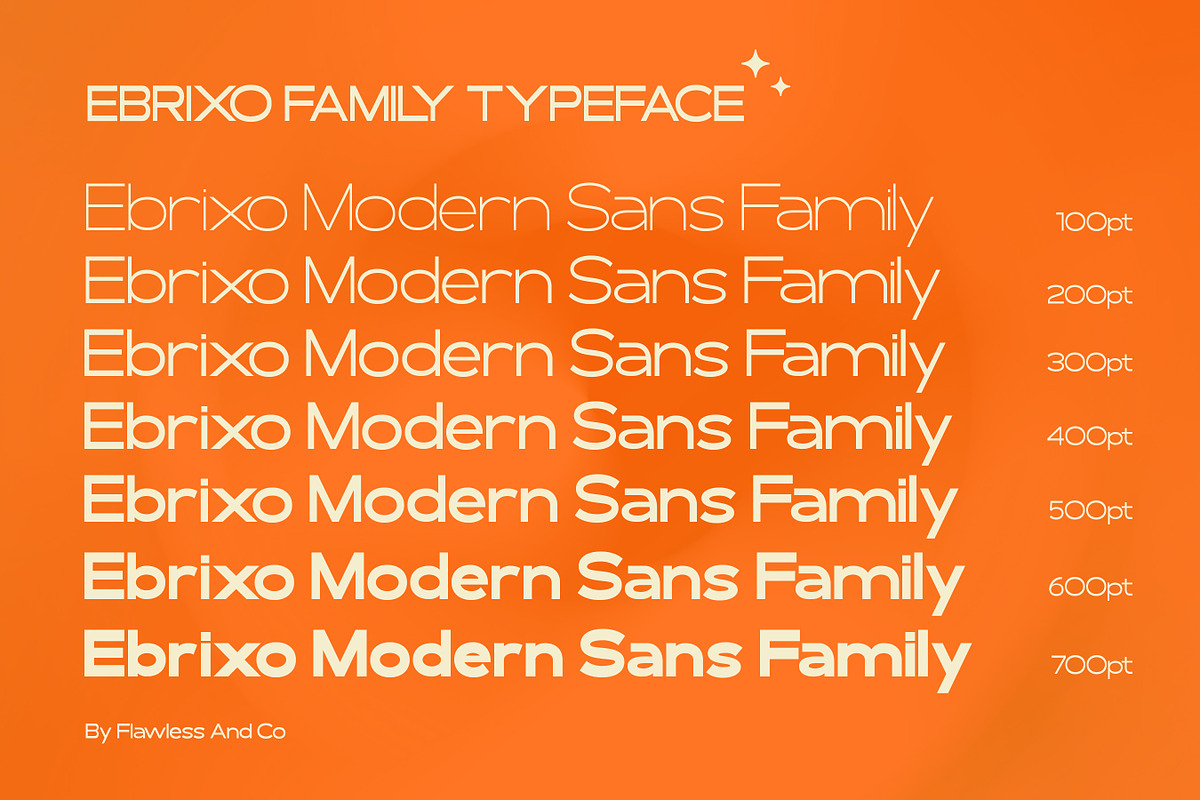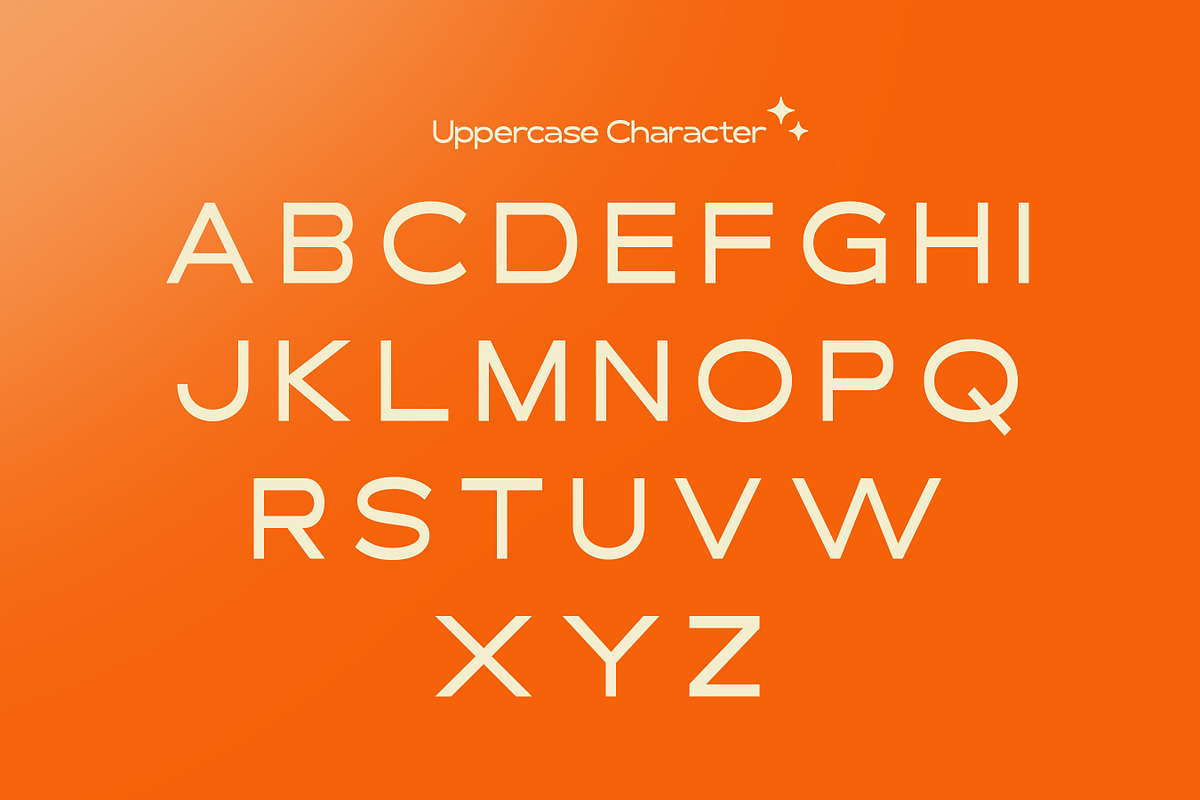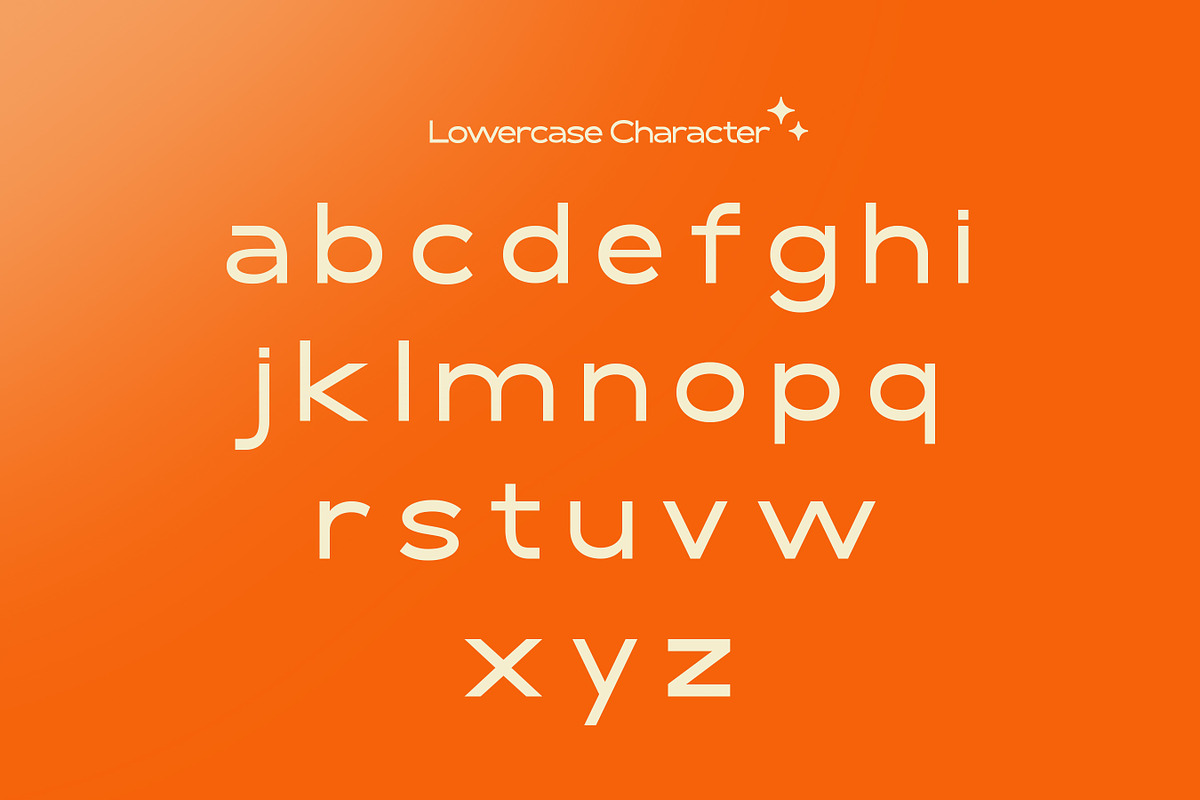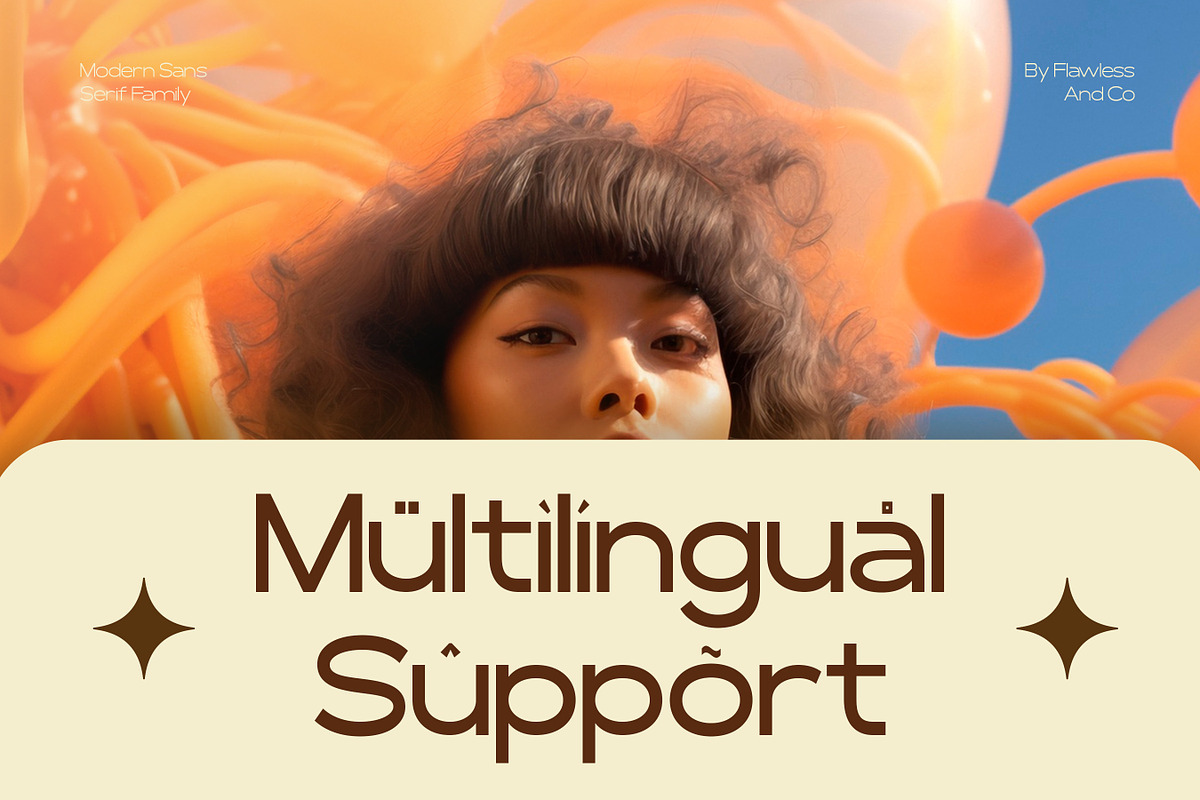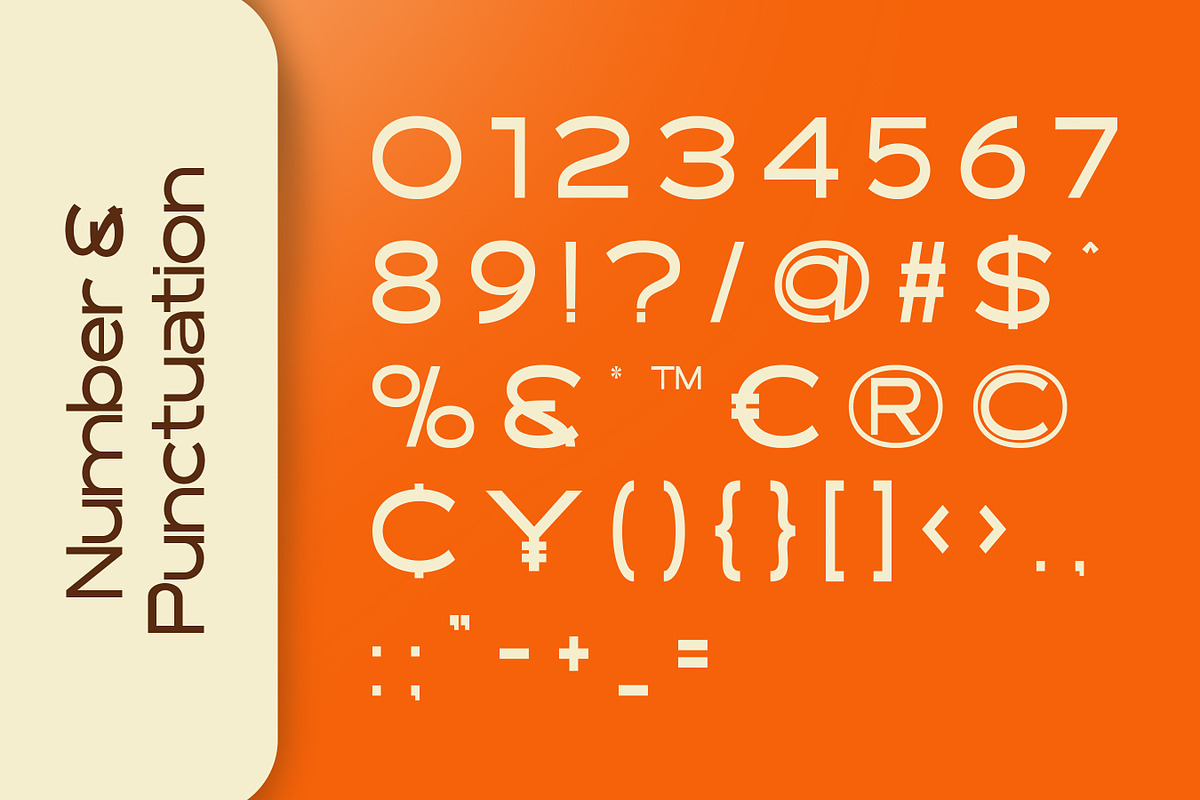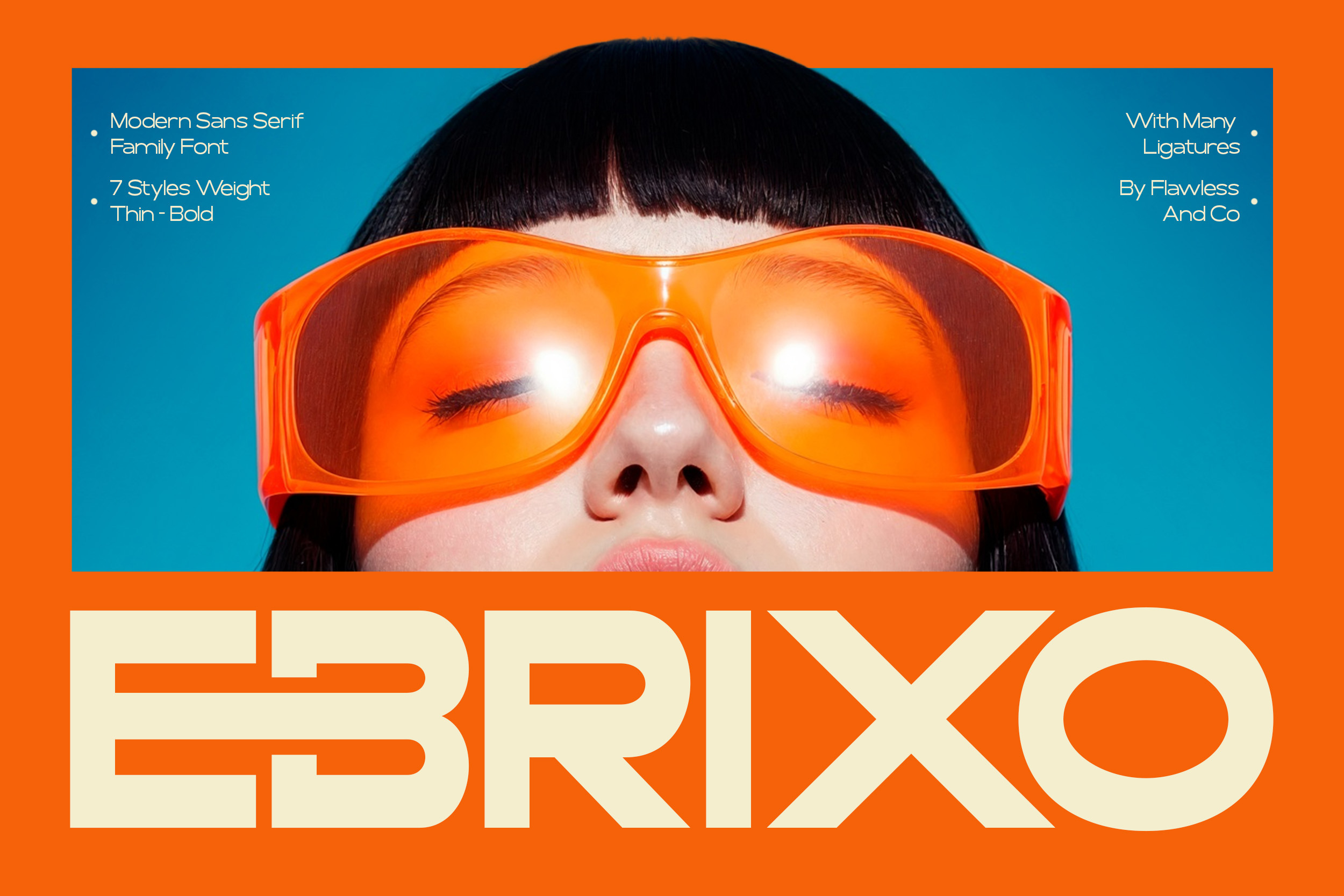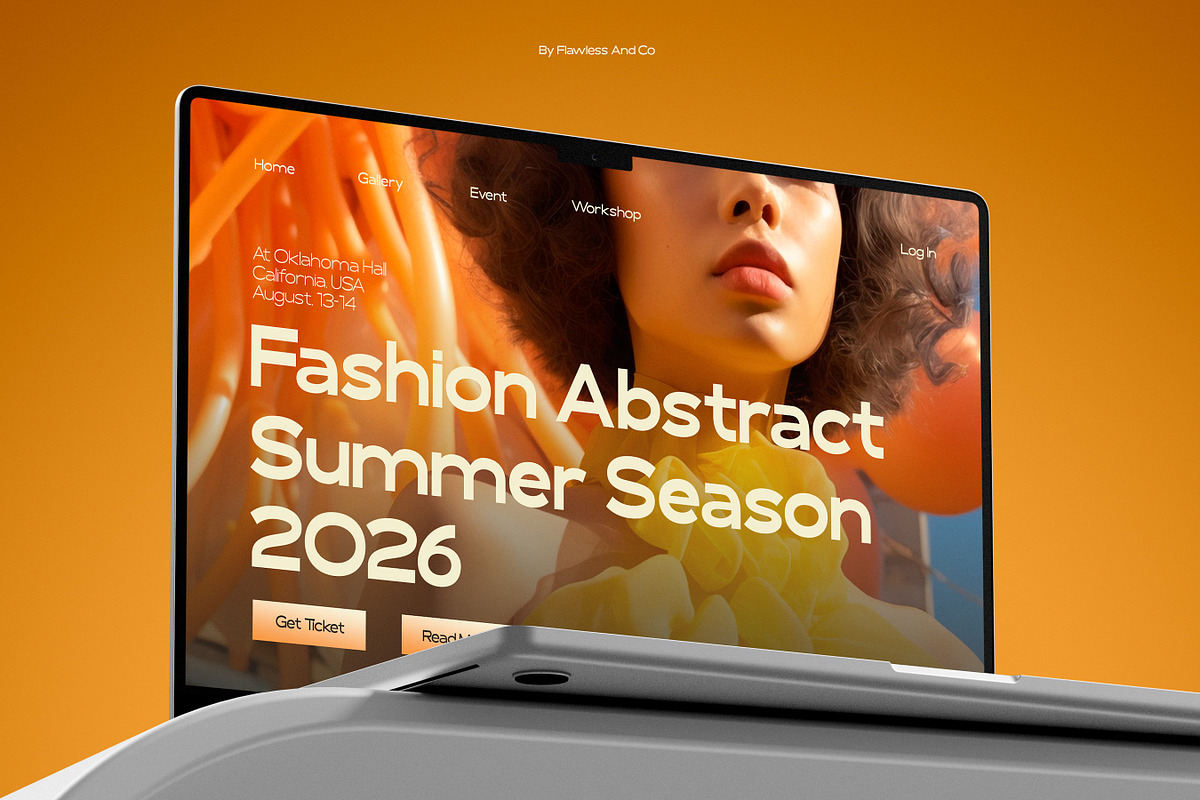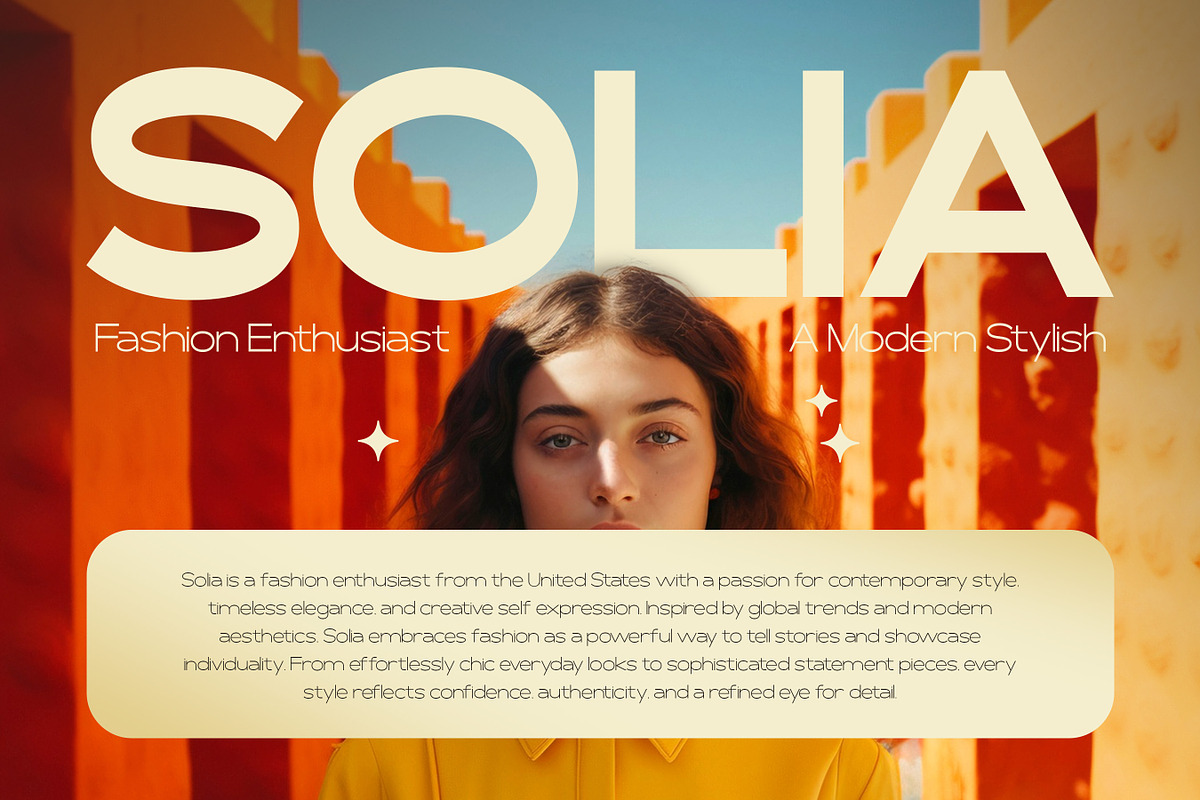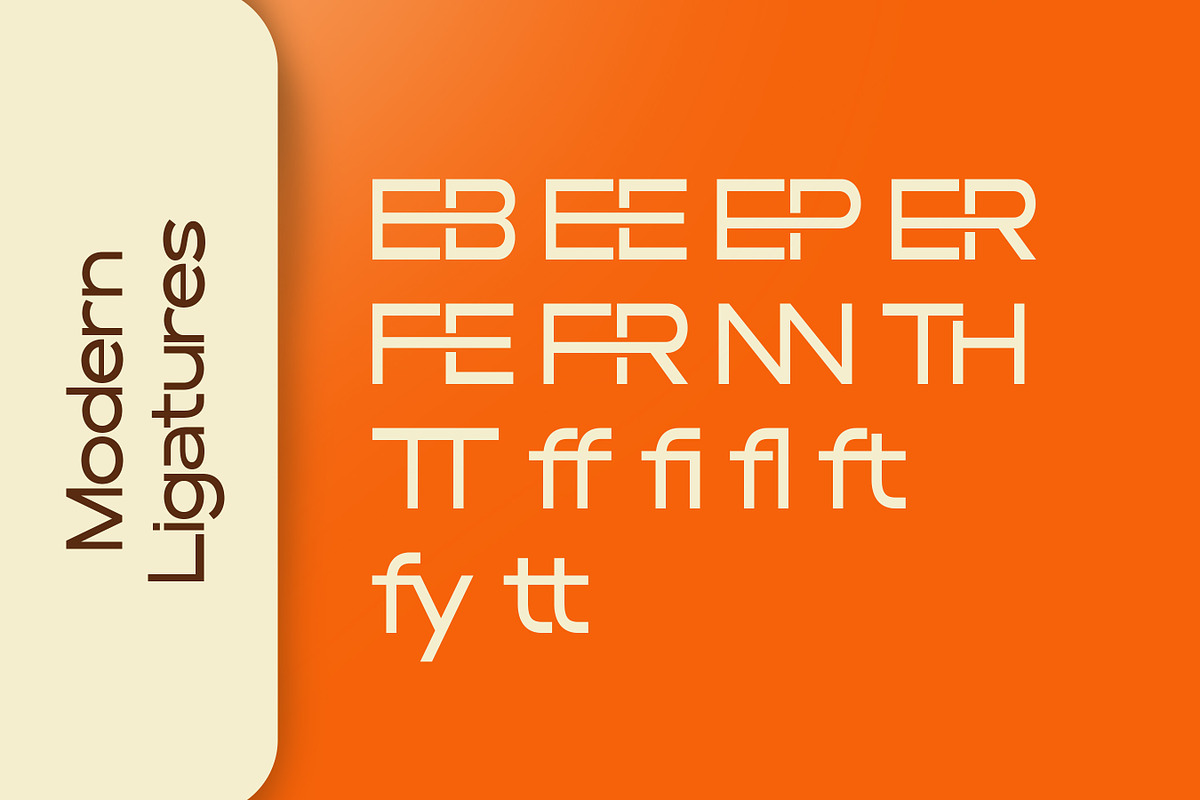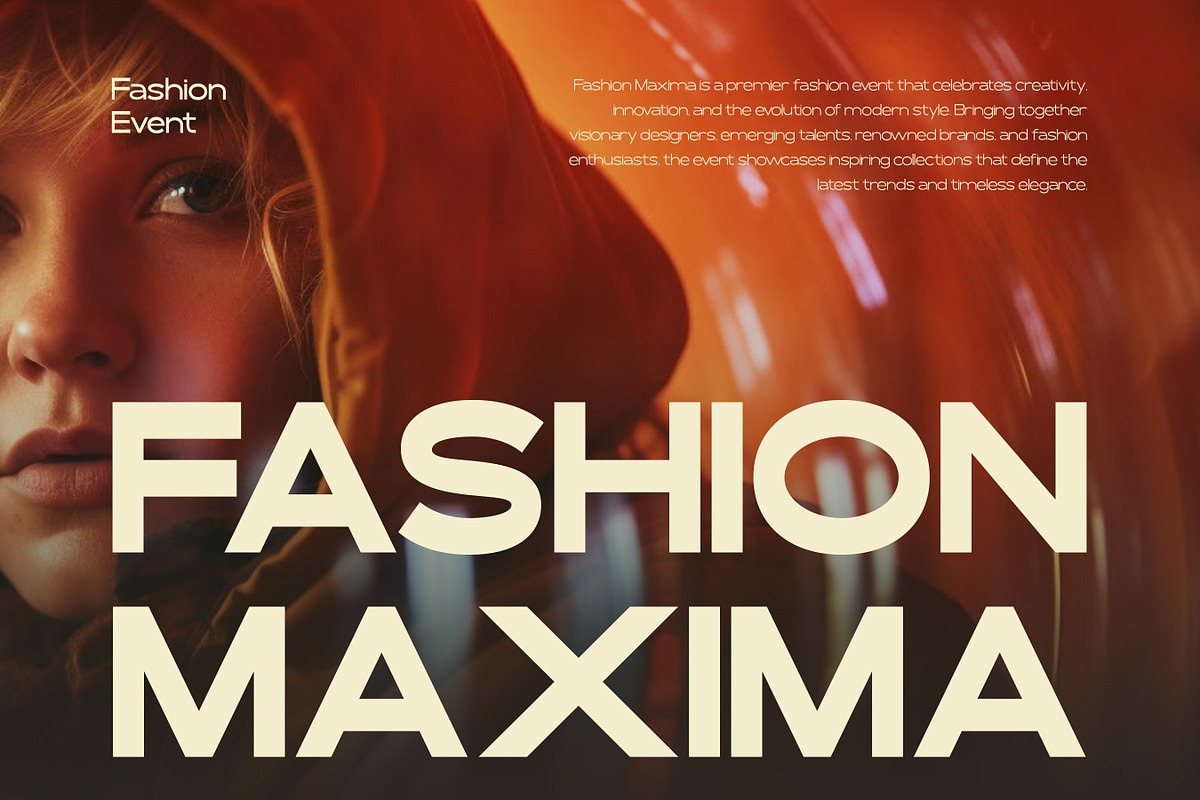
Ebrixo - Modern Sans Family Font
Ebrixo - Modern Sans Serif Family Font
Ebrixo is a modern sans serif family font designed to bring confidence, clarity, and contemporary sophistication into every design. Featuring seven carefully crafted weights from Thin to Bold, Ebrixo offers exceptional flexibility for creating everything from refined editorial layouts to bold brand identities. Its clean geometric forms, balanced proportions, and smooth curves create a timeless aesthetic that feels fresh, professional, and effortlessly stylish.
Alternates & Ligatures
Who should use Ebrixo?
Ebrixo is perfect for branding designers, creative agencies, startups, UI/UX designers, publishers, and businesses looking for a versatile sans serif family that delivers exceptional readability, modern aesthetics, and professional consistency across every application.
Suitable for:
Branding and visual identity
Logo and wordmark design
Fashion and lifestyle branding
Website and UI/UX design
Editorial and magazine layouts
Product packaging and labels
Marketing and advertising materials
Corporate presentations and digital content